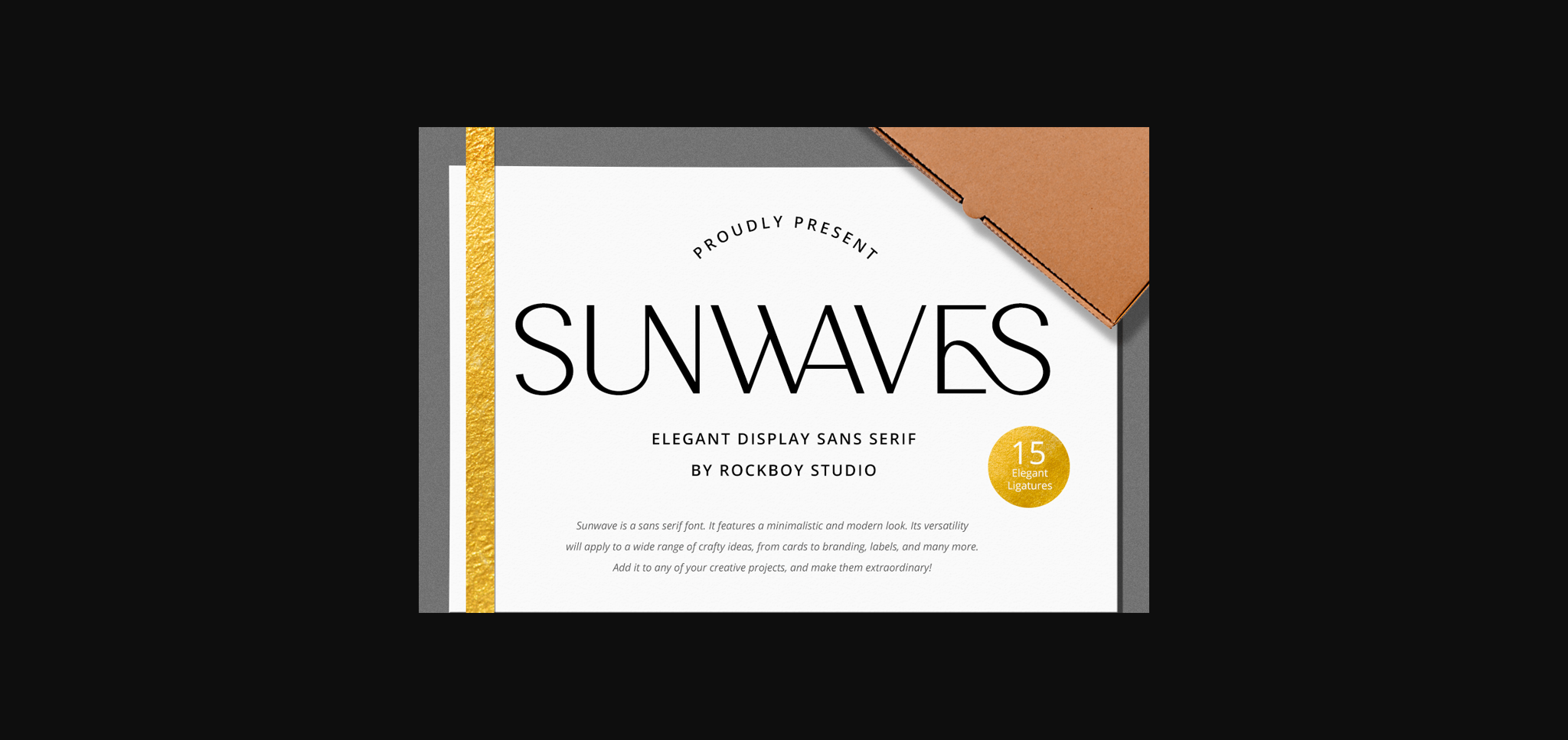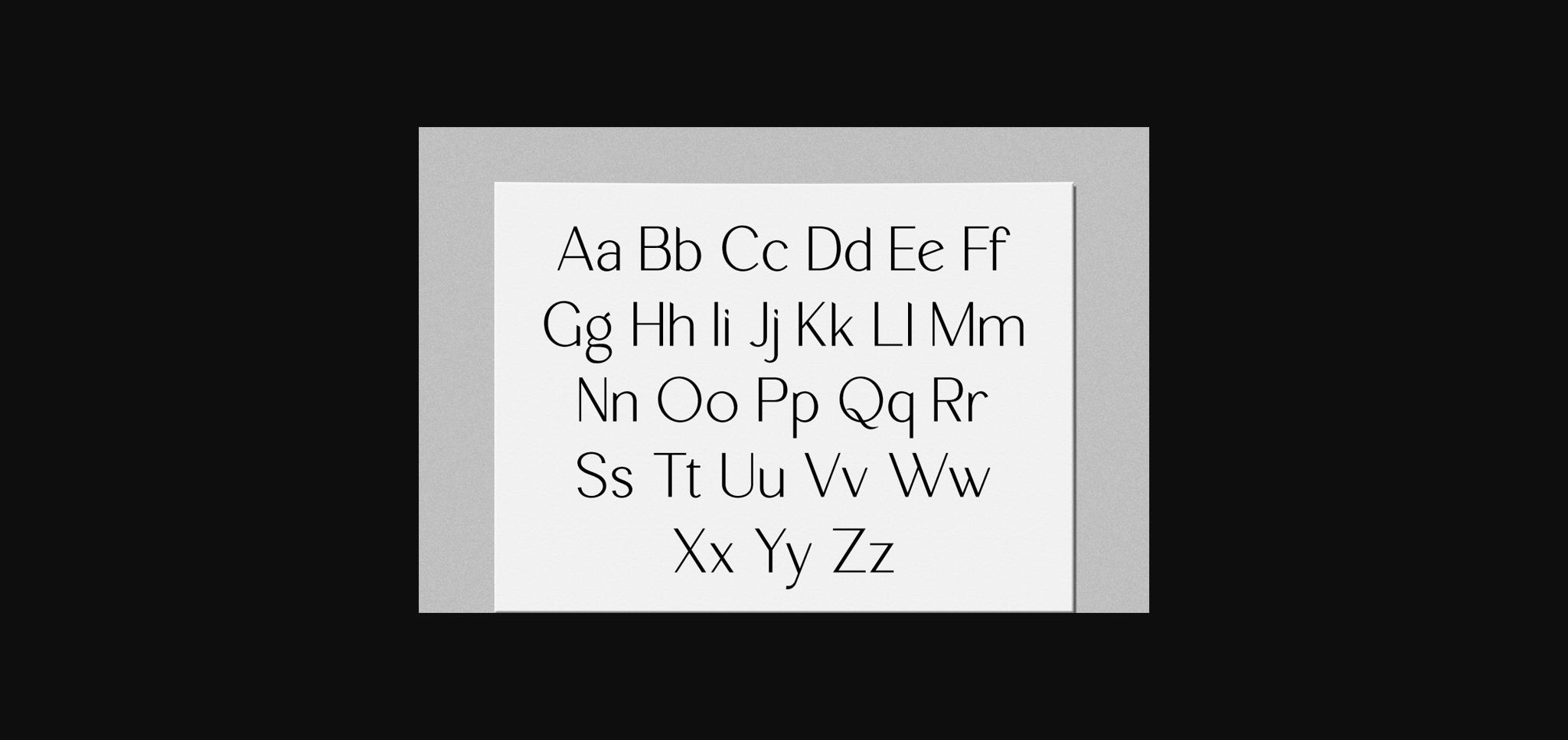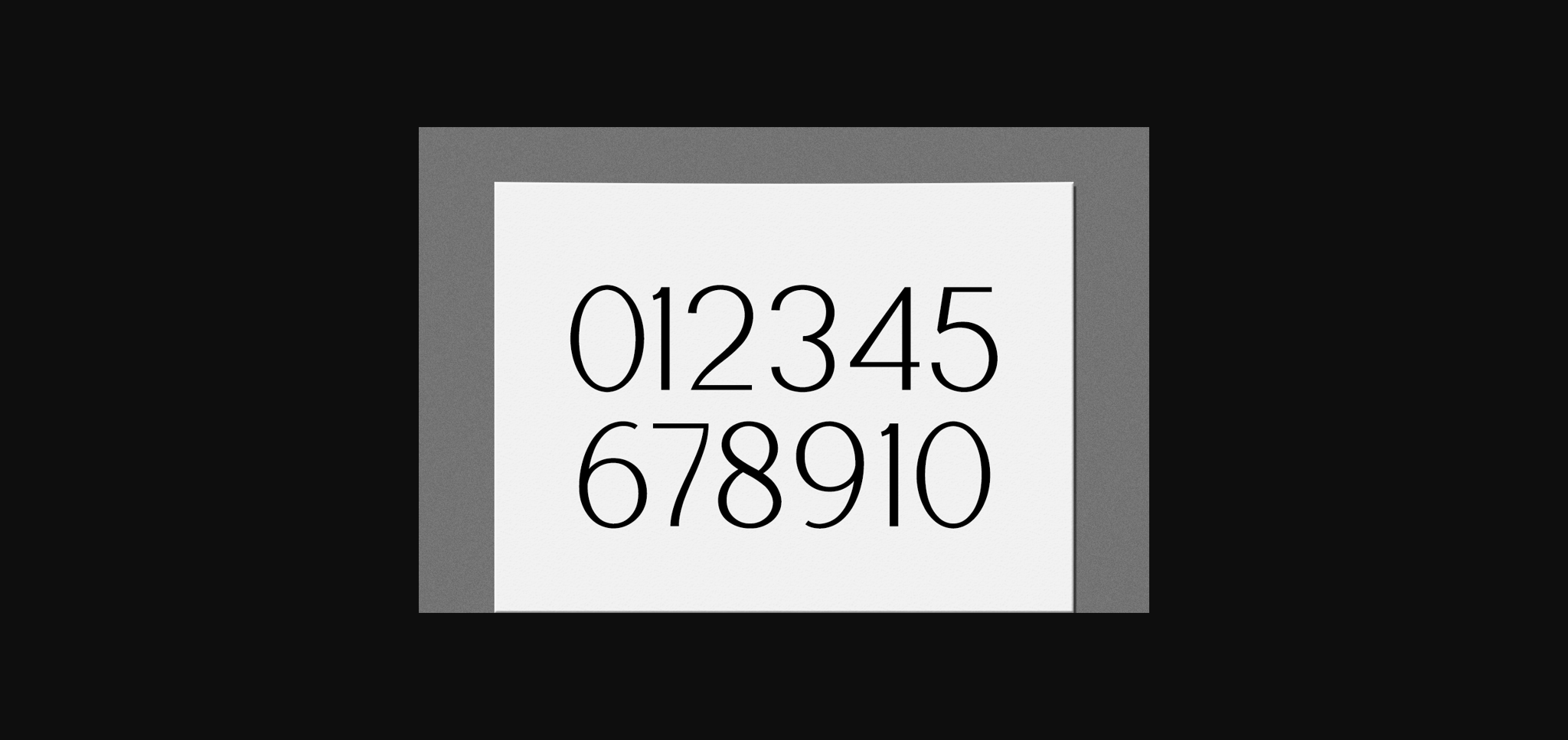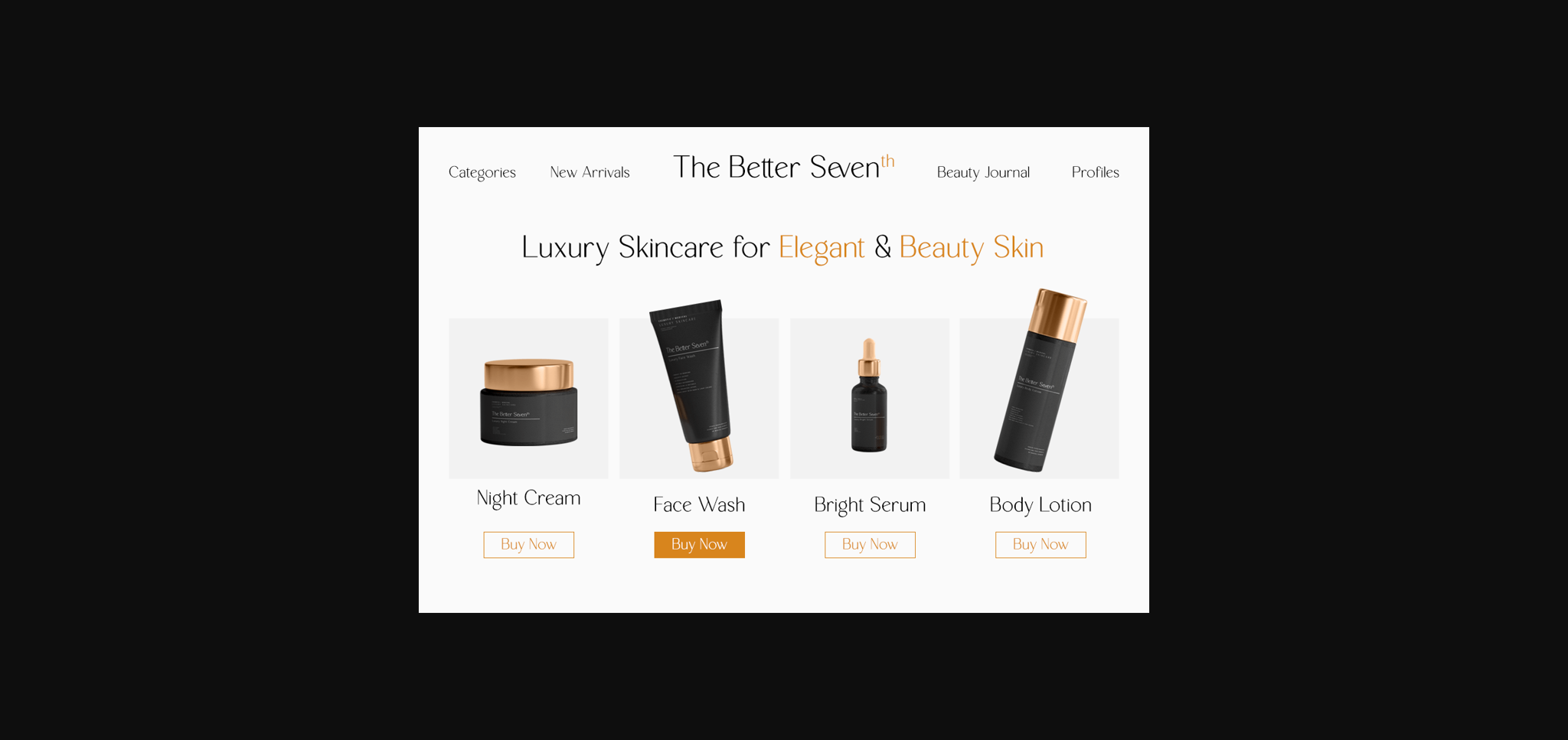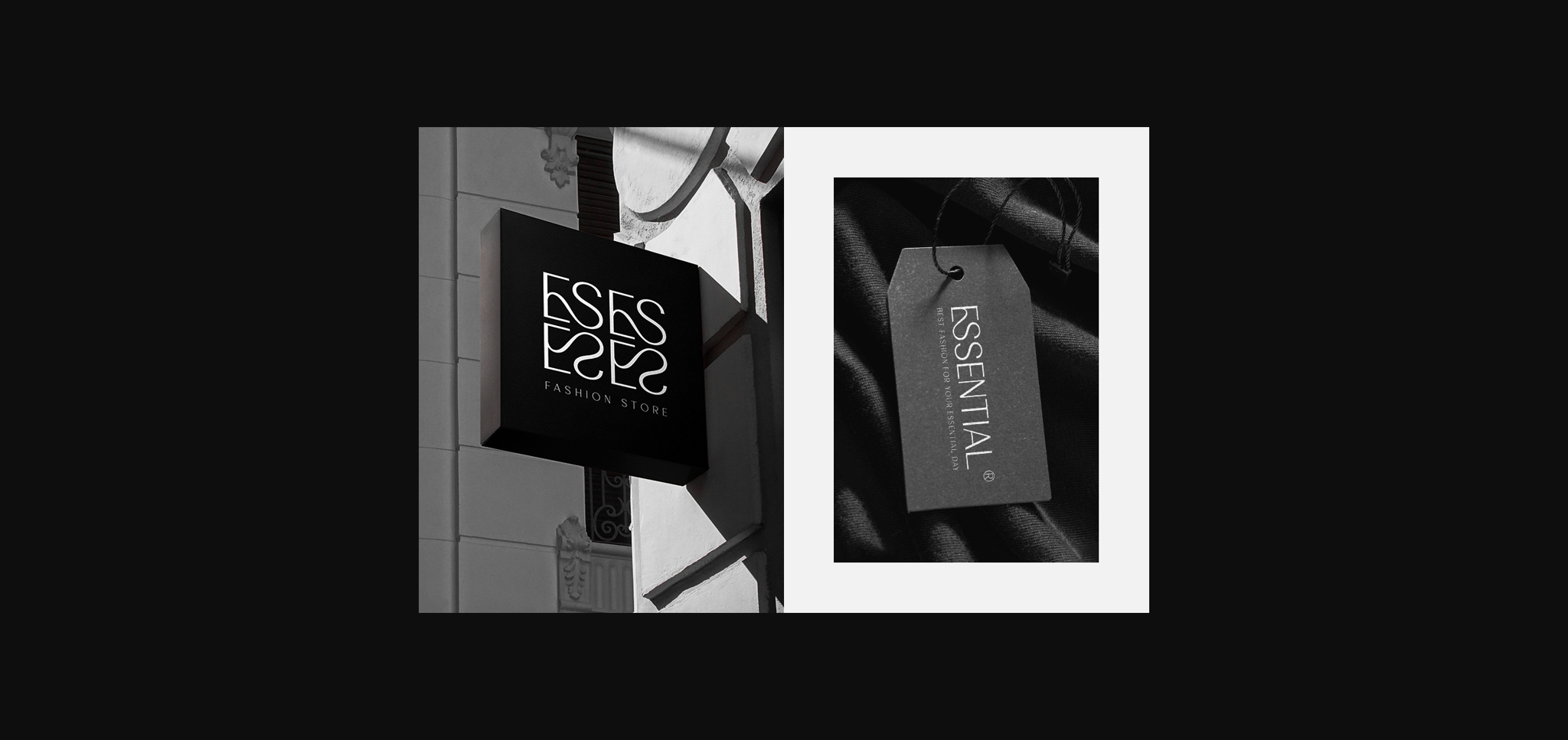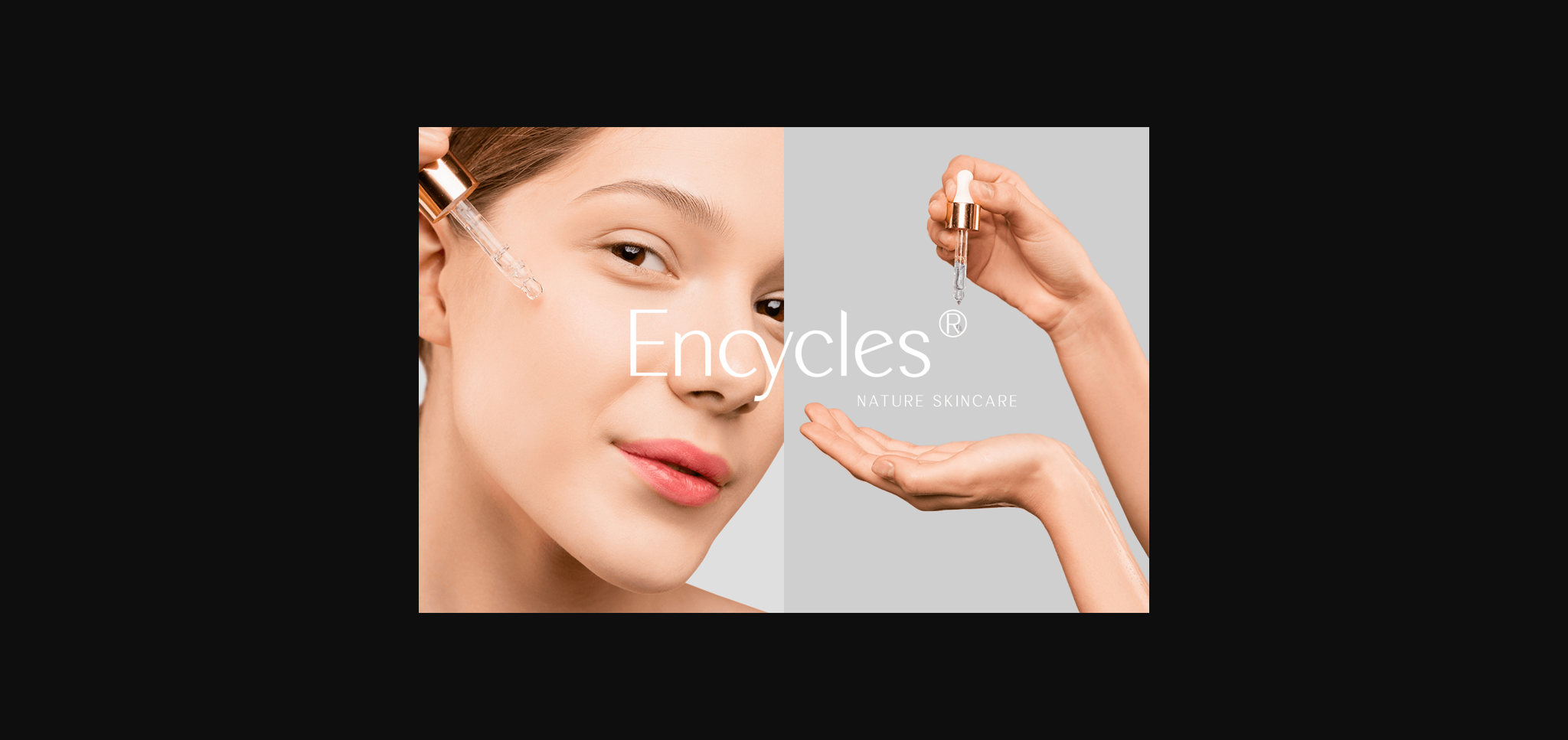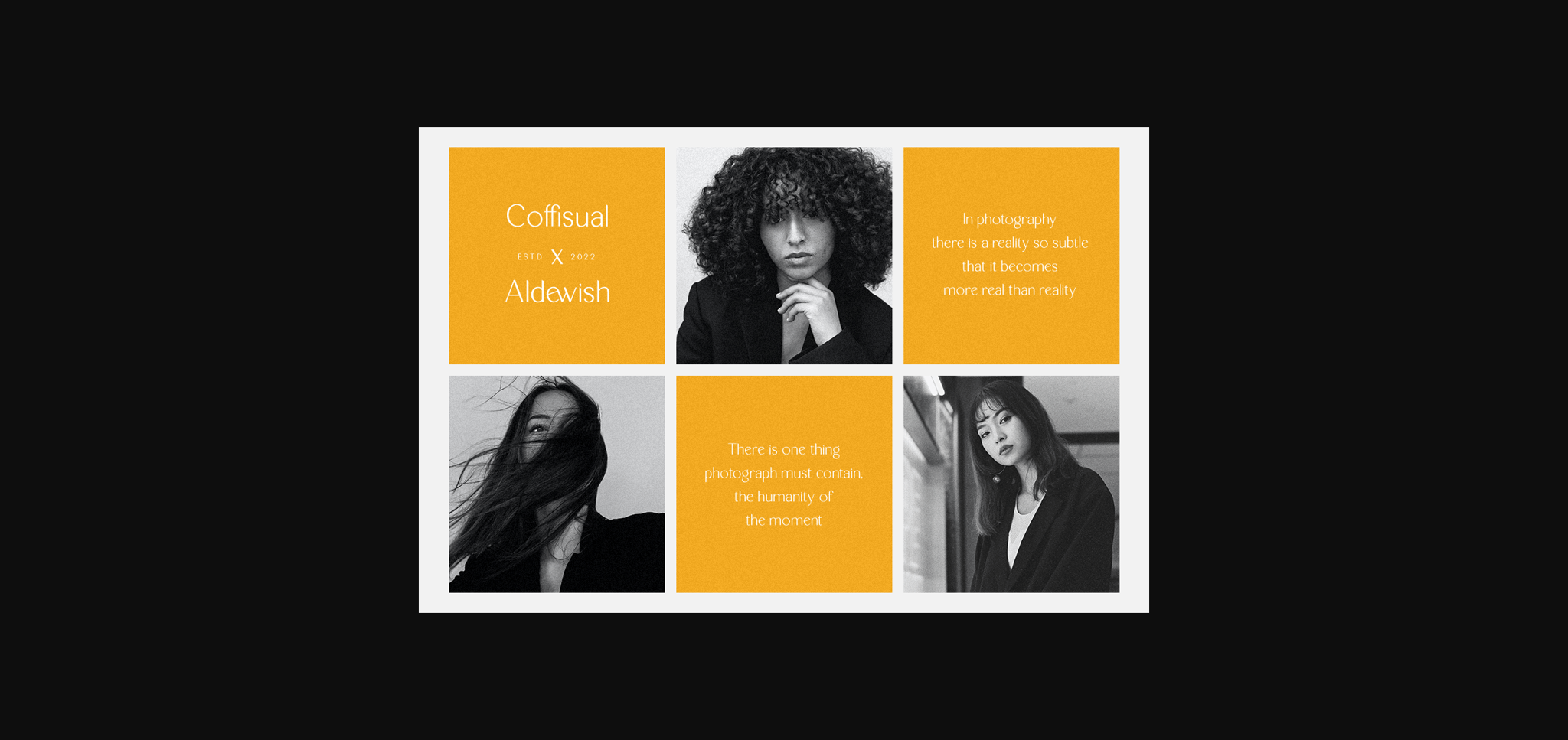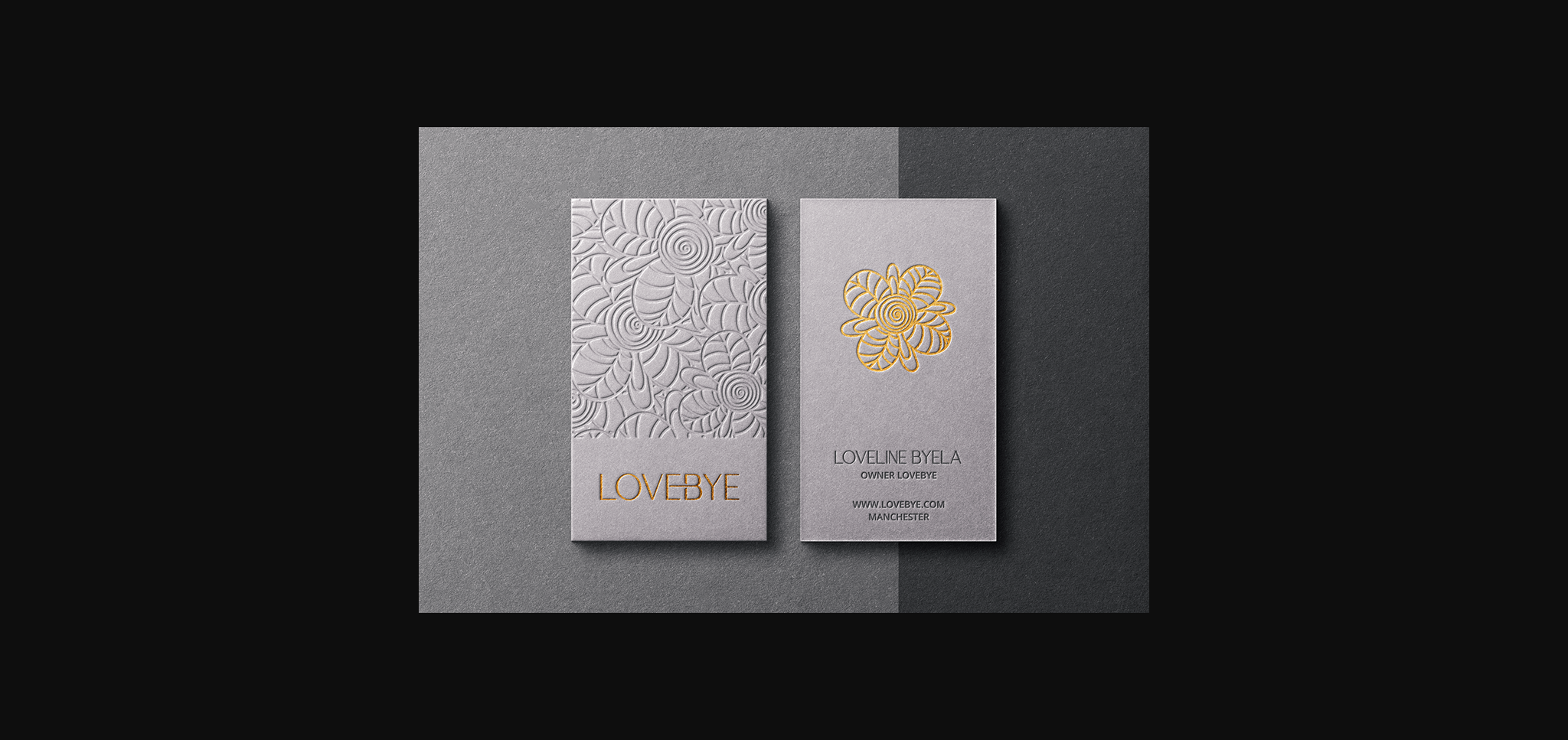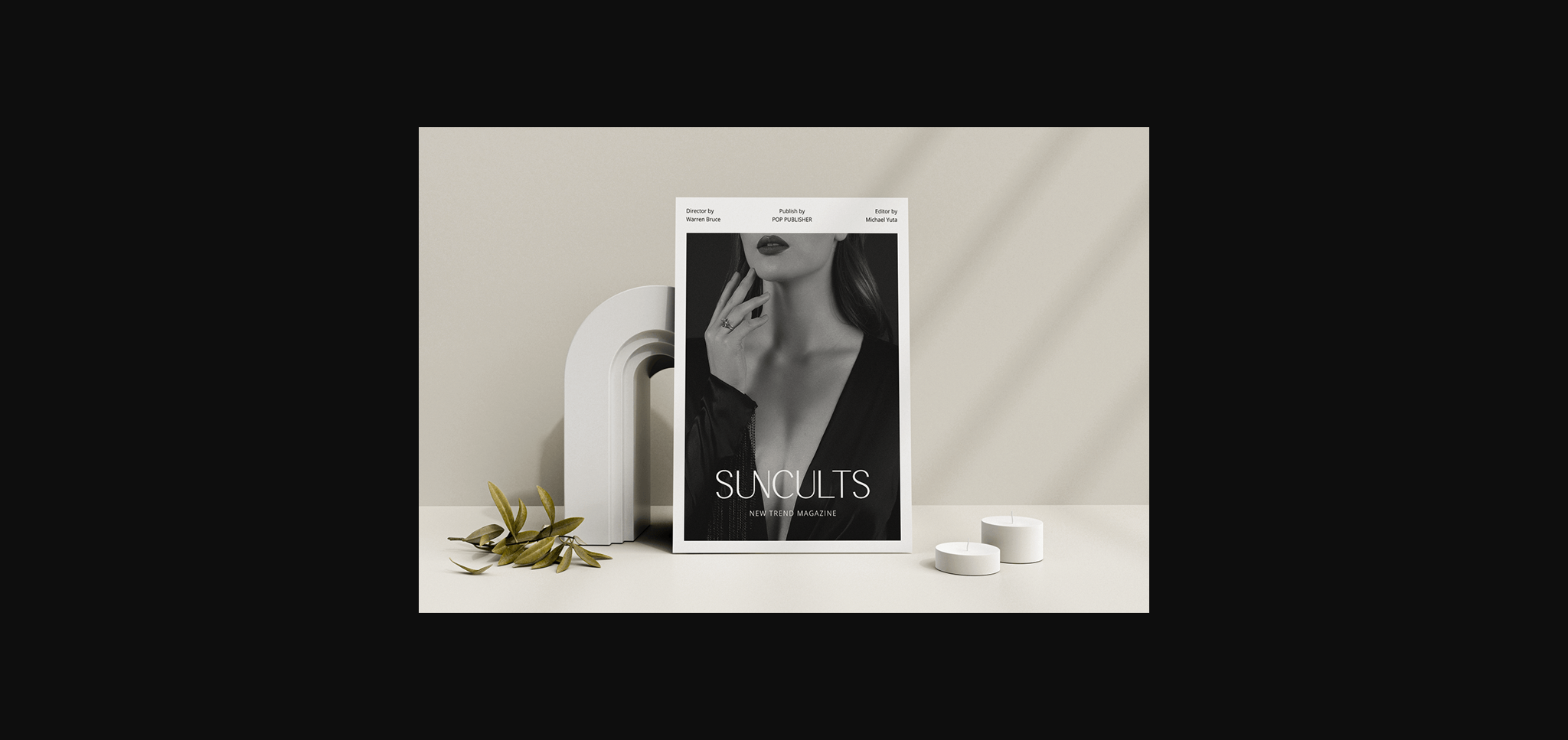
HomeSans Serif FontsSunwaves Font Sans Serif Fonts Sunwaves Font FacebookXPinterestWhatsApp 1 of 11 ... Sunwaves Font Poster 2... Sunwaves Font Poster 3... Sunwaves Font Poster 4... Sunwaves Font Poster 5... Sunwaves Font Poster 6... Sunwaves Font Poster 7... Sunwaves Font Poster 8... Sunwaves Font Poster 9... Sunwaves Font Poster 10... Sunwaves Font Poster 11... About Sunwaves Font Sunwaves is an elegant and modern sans serif font. It can easily match your various projects, so add it to your creative ideas and watch how it makes them stand out. DOWNLOAD NOW People also explored Thalib Font Bubble Gum Font Santa Cute Oo Font Religiosity Font Natron Font Stock Design July Font Andora Font Baiskey Font 350 0 TagsSunwaves Font Previous articleDiva Duet FontNext articleCatherine Font LEAVE A REPLY Cancel reply Comment: Please enter your comment! Name:* Please enter your name here Email:* You have entered an incorrect email address! Please enter your email address here Website: Save my name, email, and website in this browser for the next time I comment. Personal Use Free BD Lofi Personal Use Free Read more about this font Farmgarden Personal Use Free Read more about this font Relic Island 2 Personal Use Free Read more about this font Silver Bullet Personal Use Free Read more about this font BLOG How to Install and Use Fonts on Windows, macOS, and Web Projects How to Install and Use Fonts on Windows, macOS, and Web Projects Fonts are a crucial part of design and branding. Whether you’re designing a... Exploring Font Trends Best Fonts for YouTube Videos: Make Your Thumbnails Stand Out To increase your work productivity, choose the most readable fonts.